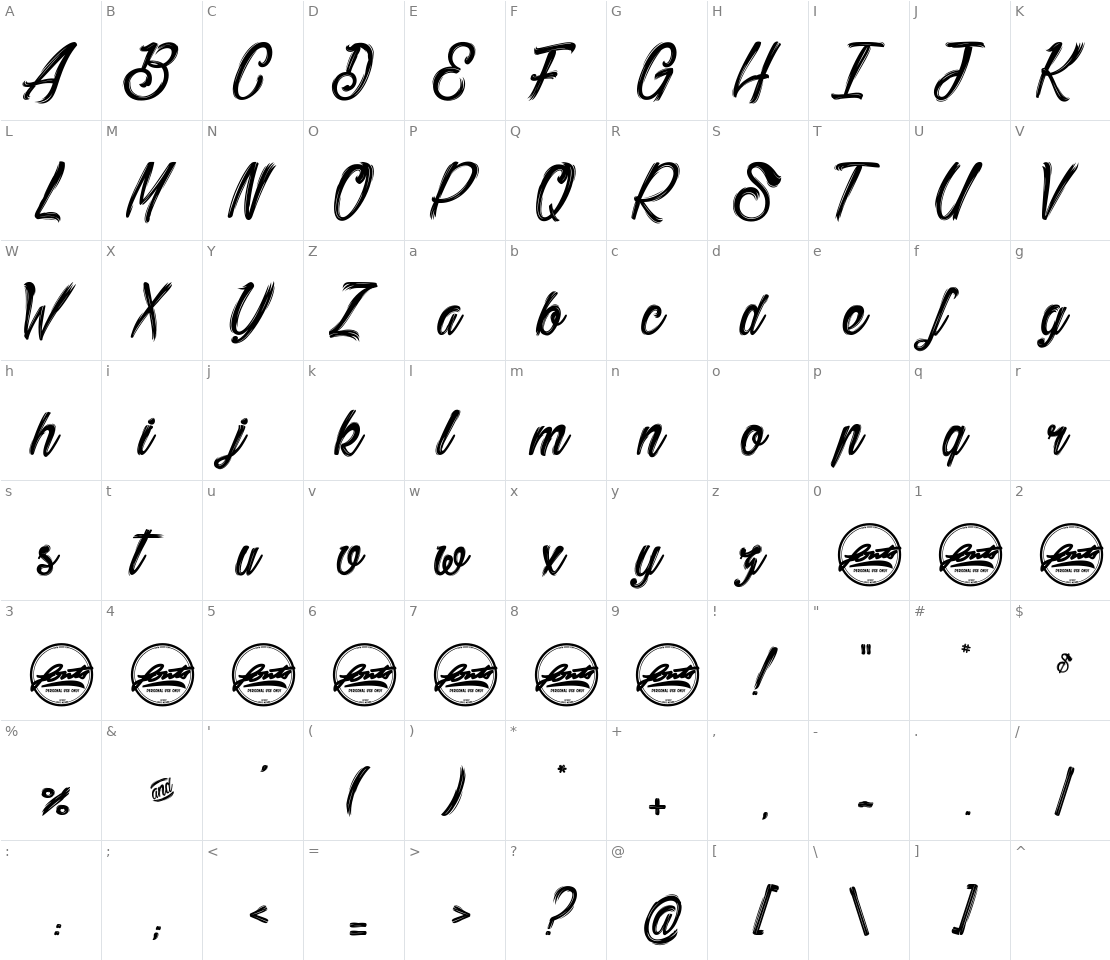
Bethanie Snake
Bethanie Snake is a bold brush script from dcoxy and Greg Medina with thick, sweeping strokes that carry a lot of dramatic energy. The letterforms flow aggressively, with visible brush texture and heavy ink coverage that feels more like a painted protest sign than careful calligraphy. Built for headlines and posters where you want type that demands attention and doesn't wait for permission.